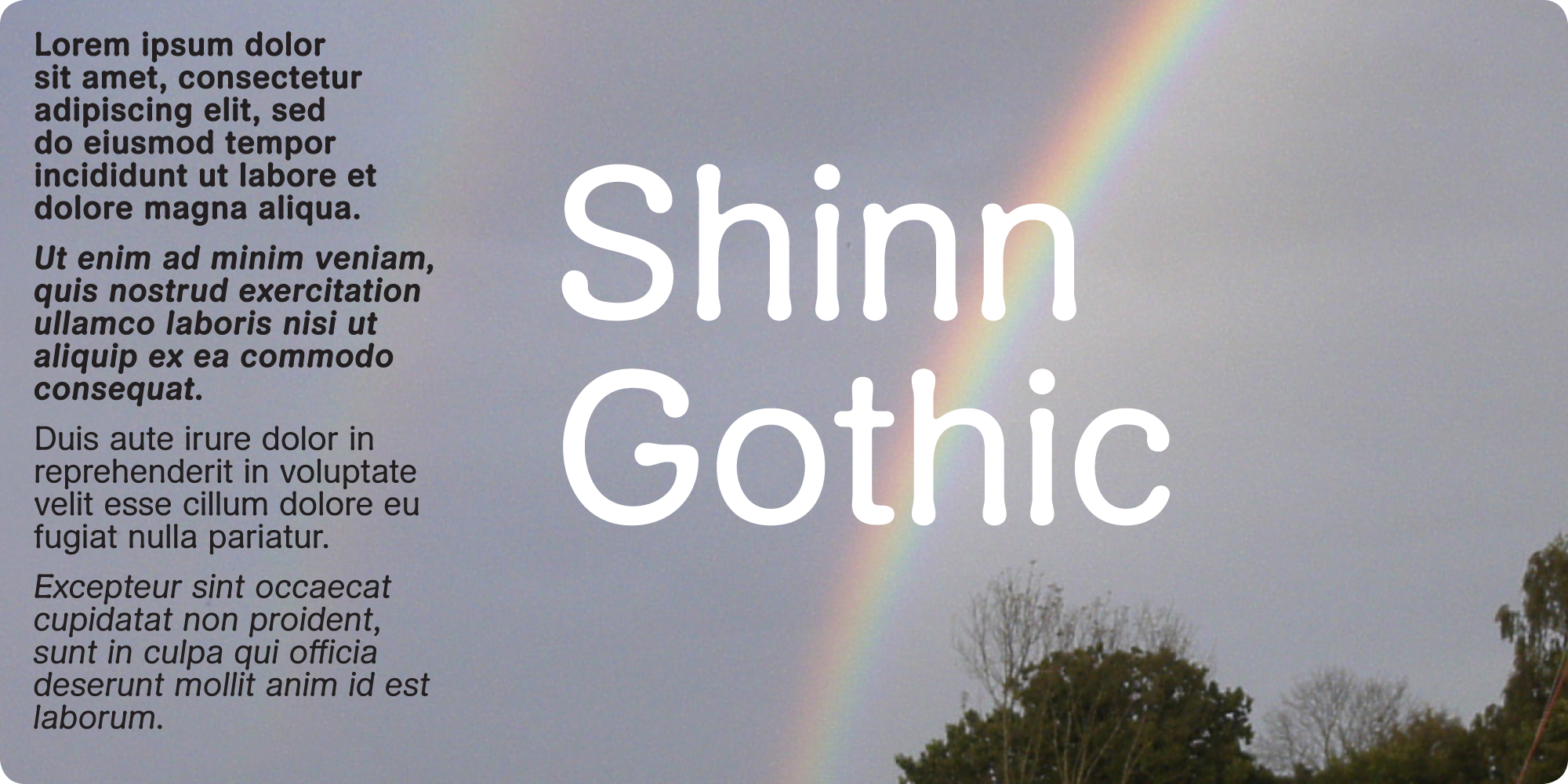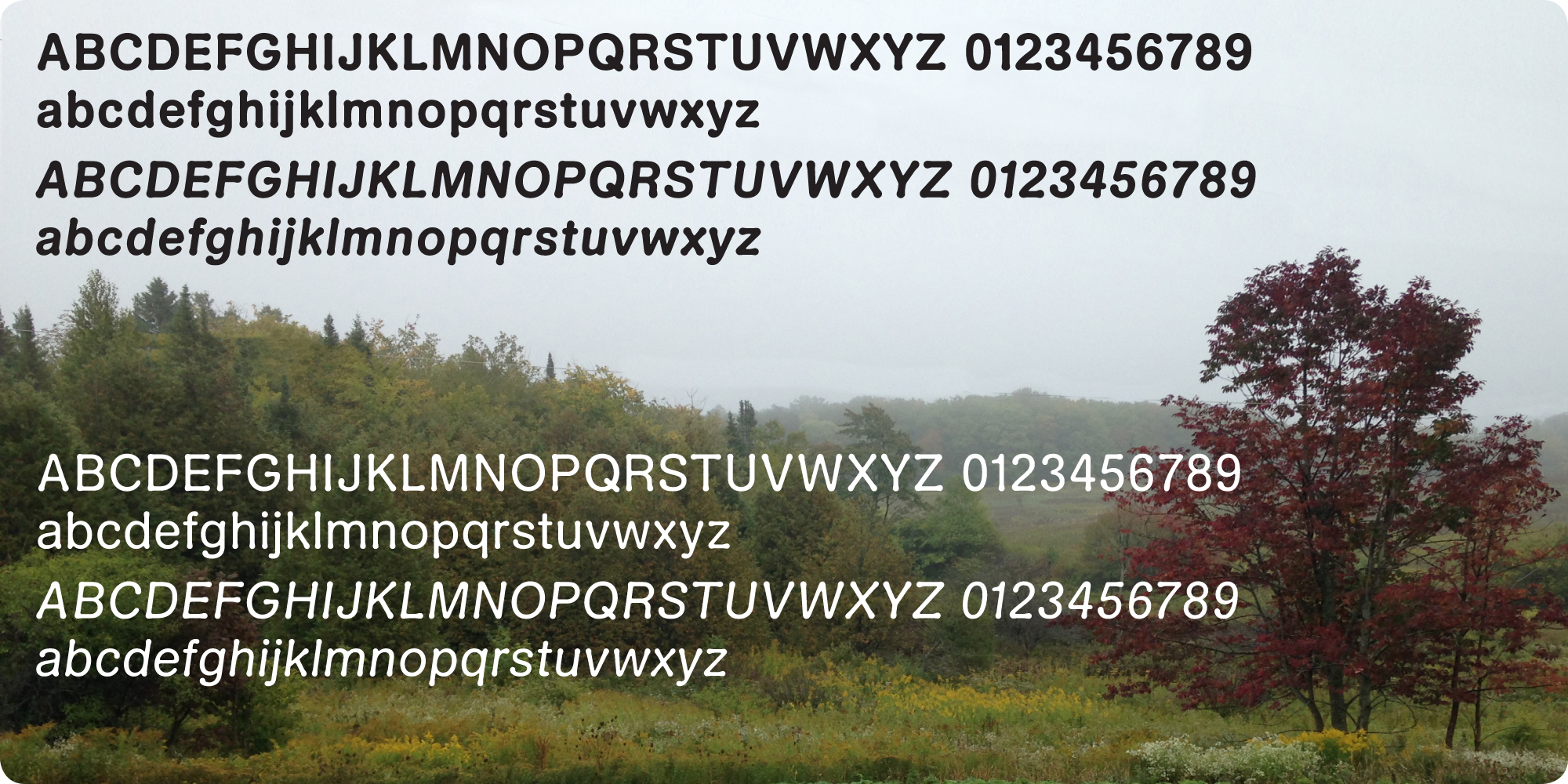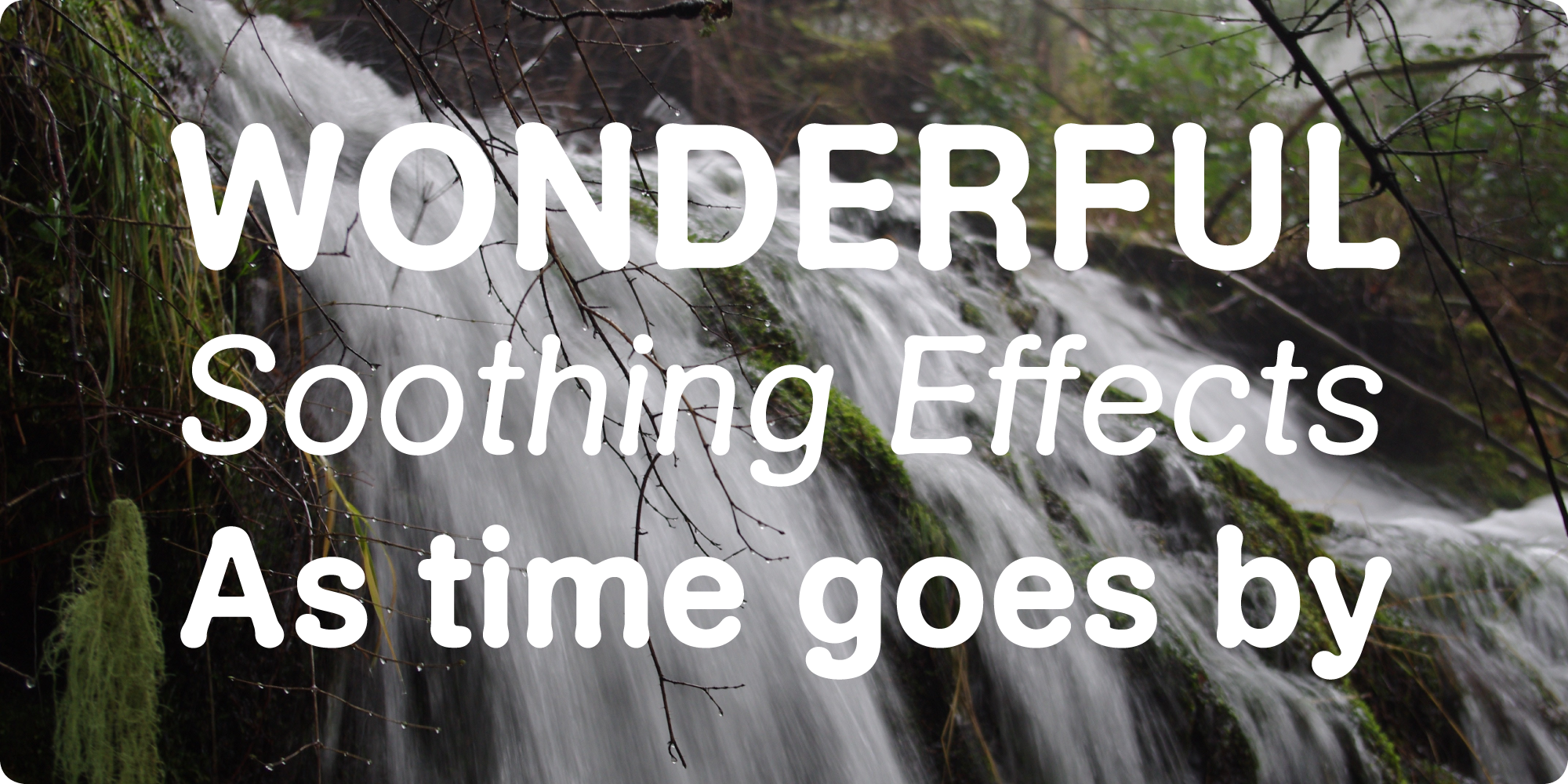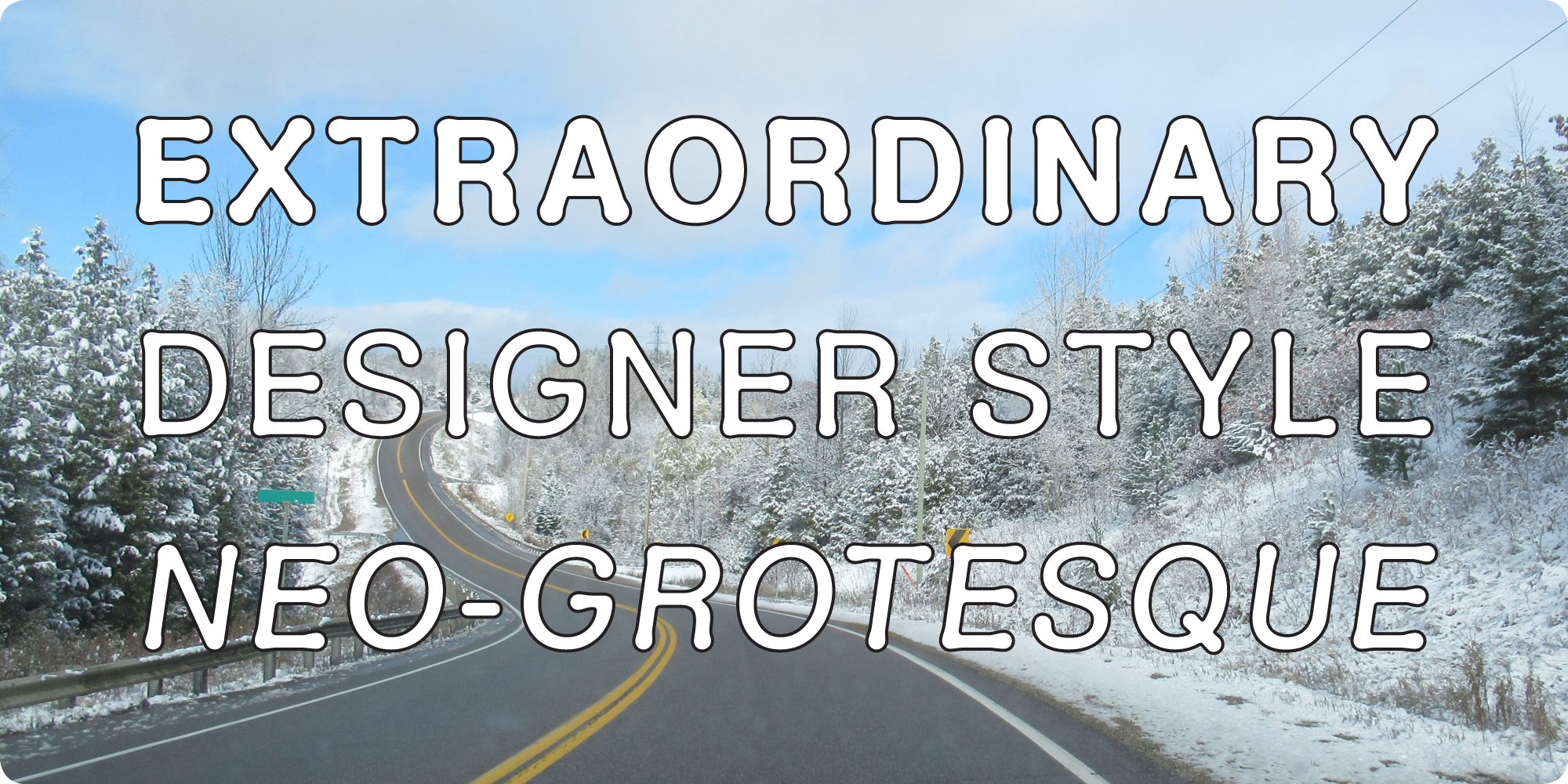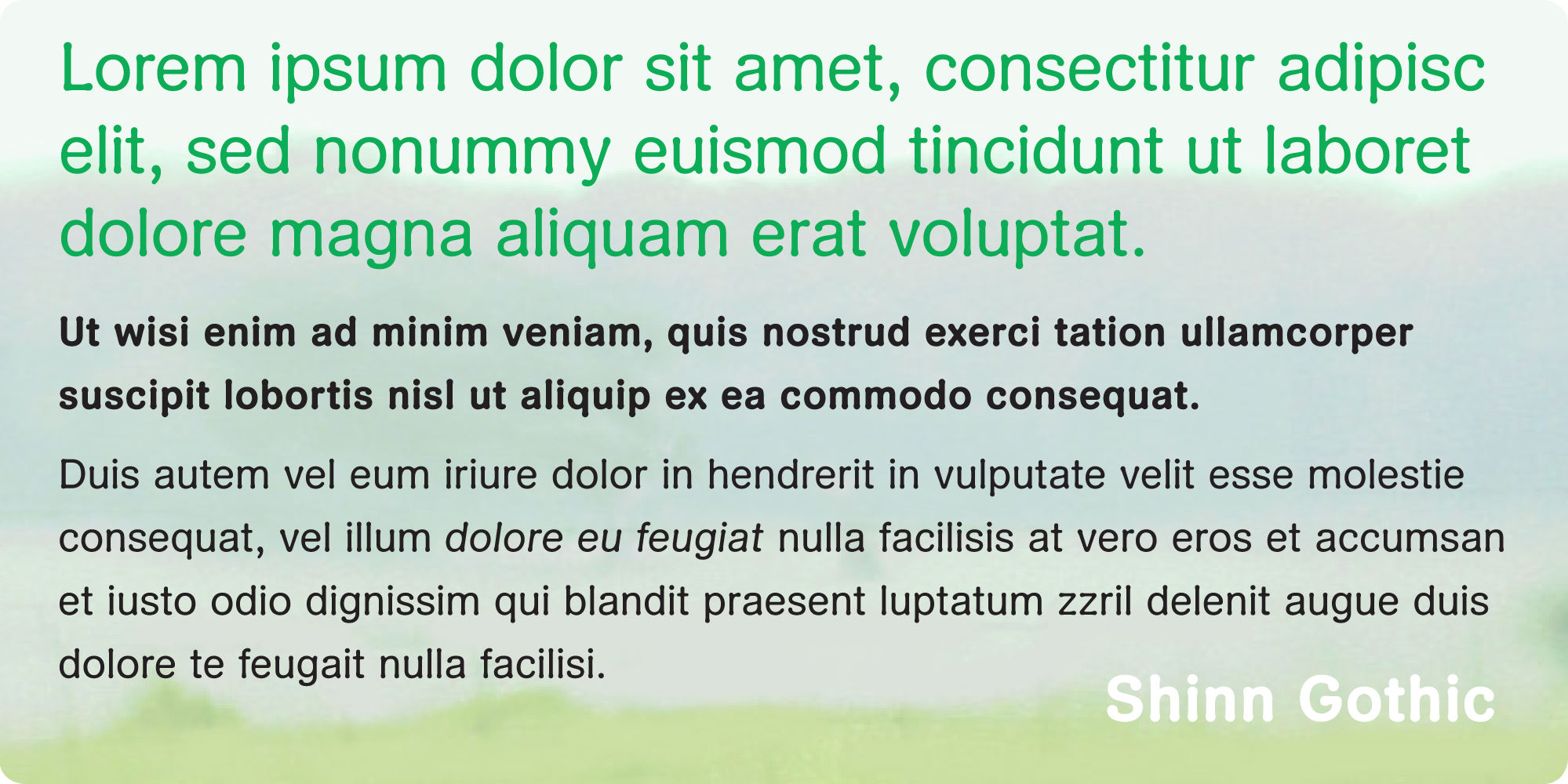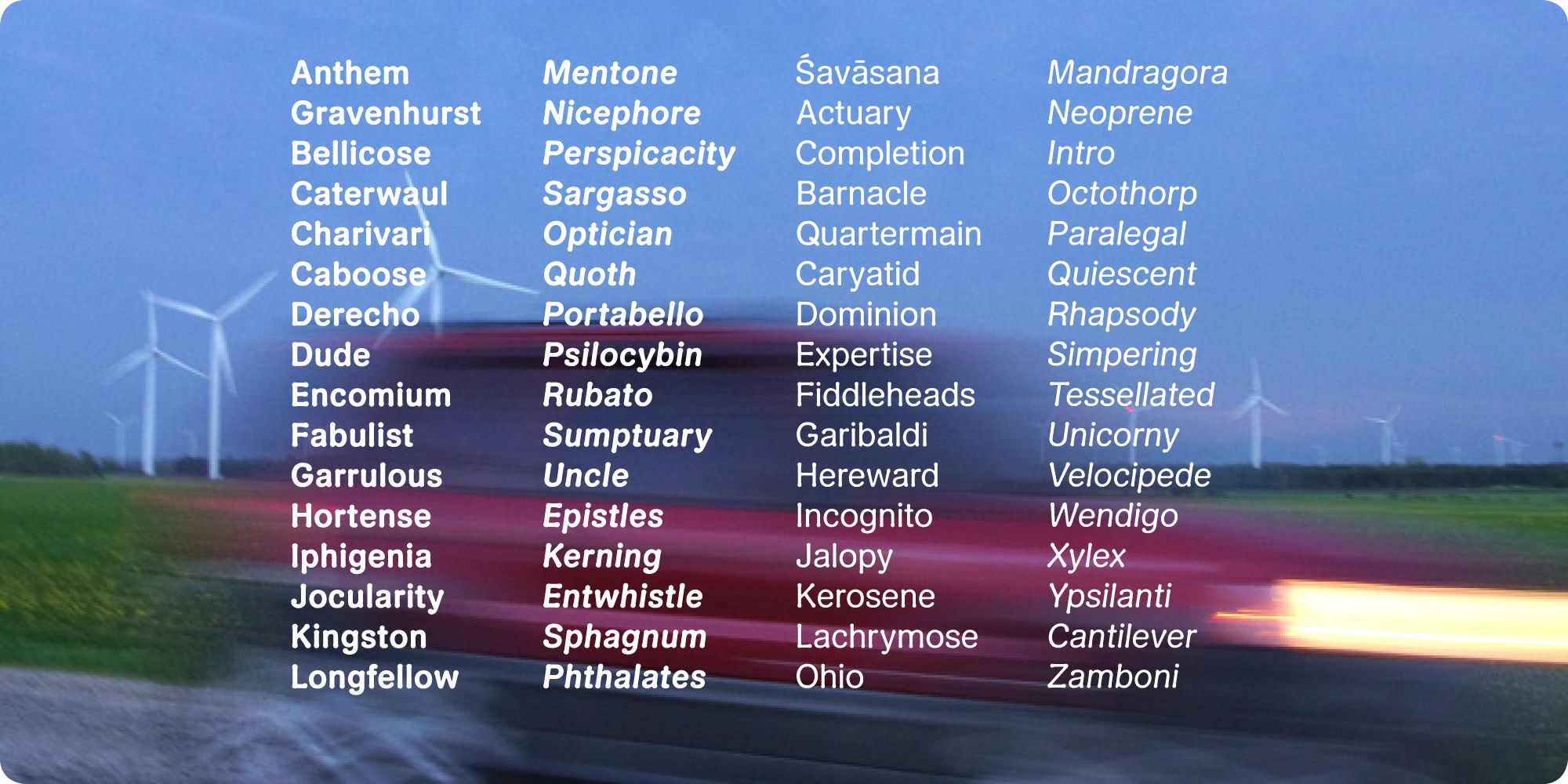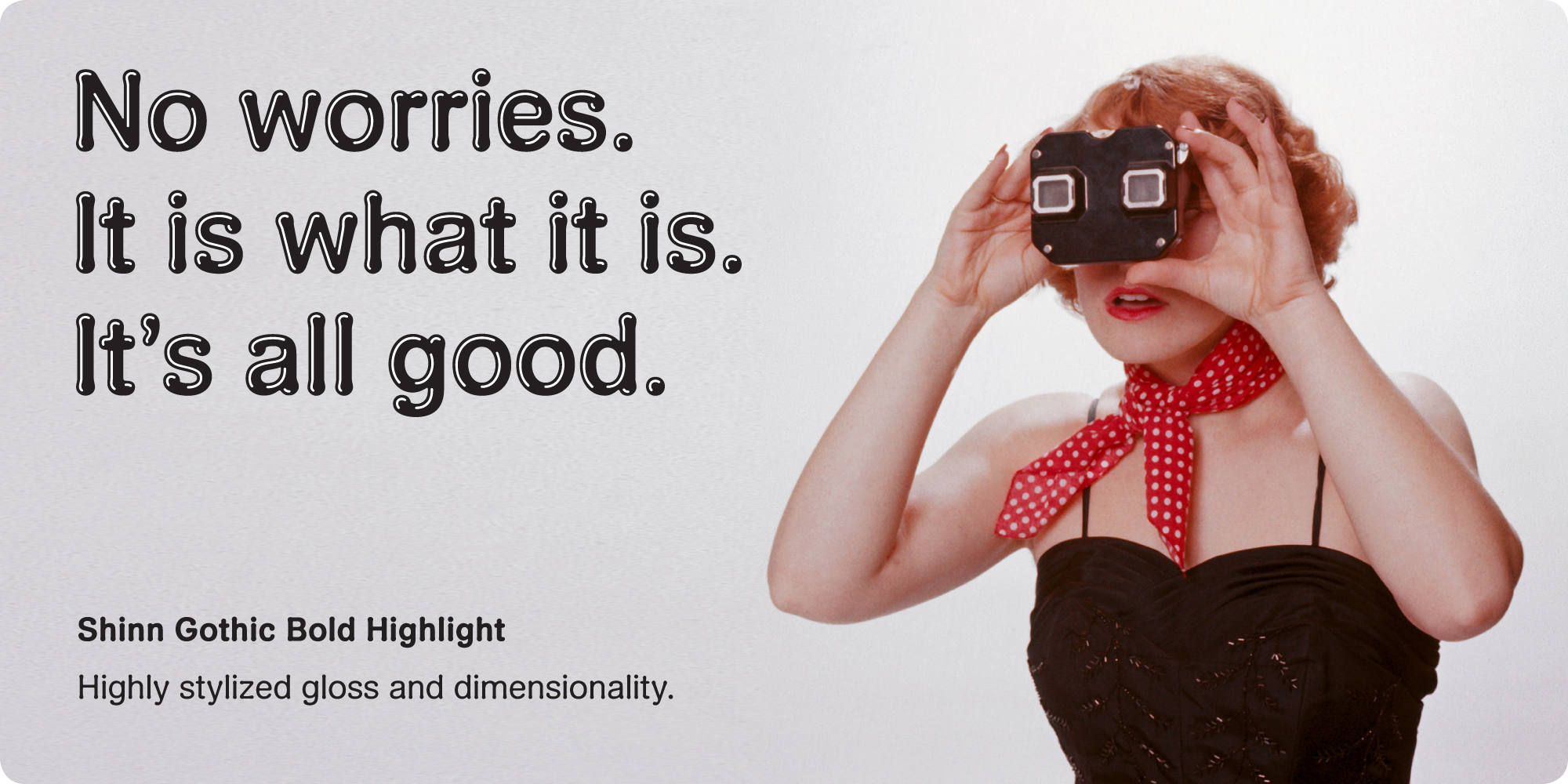
In this case, it’s a bit of a shape shifter, despite being in the vein of certain well known neo-grotesques: At text size, the treatment is not apparent—the suggestion is of a rounded style, but not exactly. At deck size, it seems to be distressed, yet in display the rigor of the structure becomes apparent.